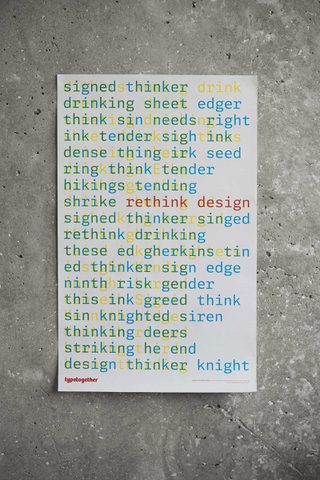
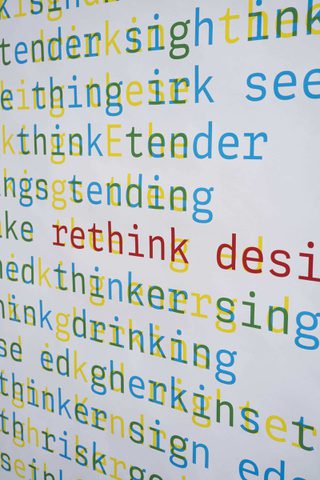
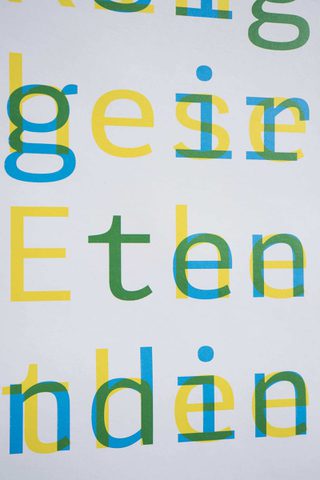
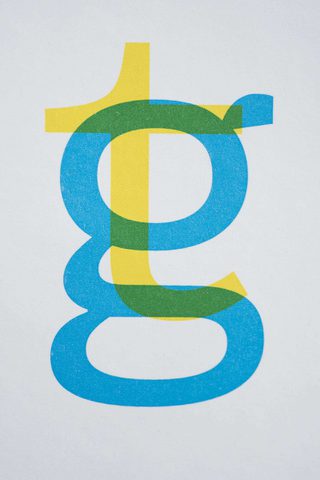
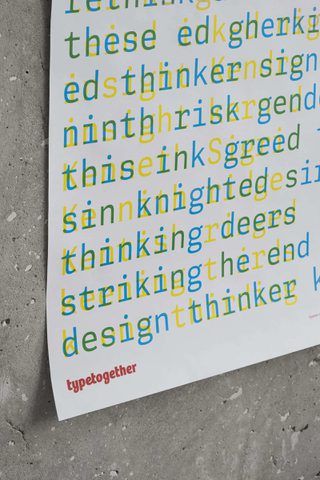
Adelle Mono poster
Designed by Argentinian designer César Sesio, this poster puts Adelle Mono to work in a bold typographic composition that highlights the family’s distinctive character.
As César explains, the Adelle Mono poster was not commissioned by TypeTogether. “I made it and then showed it to José. I love monospace fonts. They take me back to my childhood. Every Friday evening, I would go with my mom to pick up my father from work. This was in the 70s, so while waiting for him at his office, I would sit with a typewriter and play with it. On the other hand I am very attracted to overlying letters in the four primary printing colors (CMYK). Some key examples are the work of Karel Martens, Piet Zwart and Bruno Monguzzi, among others. The day I designed that poster, I had a conversation with a colleague on the role of design today. And we agreed that what we learned had to be rethought, still providing solutions to problems but to completely different problems. So, I thought a monospace font would work well with anagrams (unexpected results). And an anagram is a clear example of what rethinking a problem involves as an exercise.”
- Designer
- César Sessio